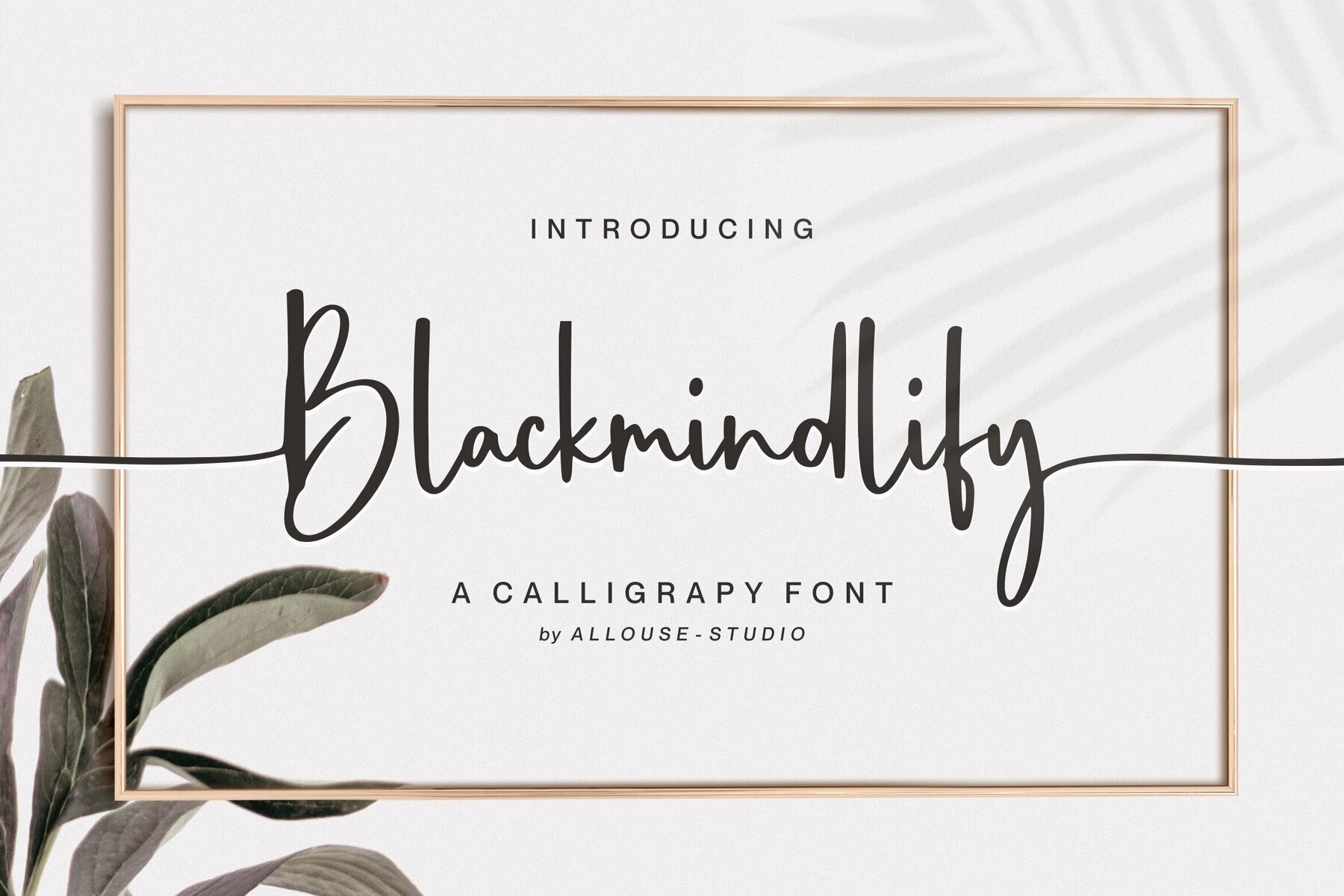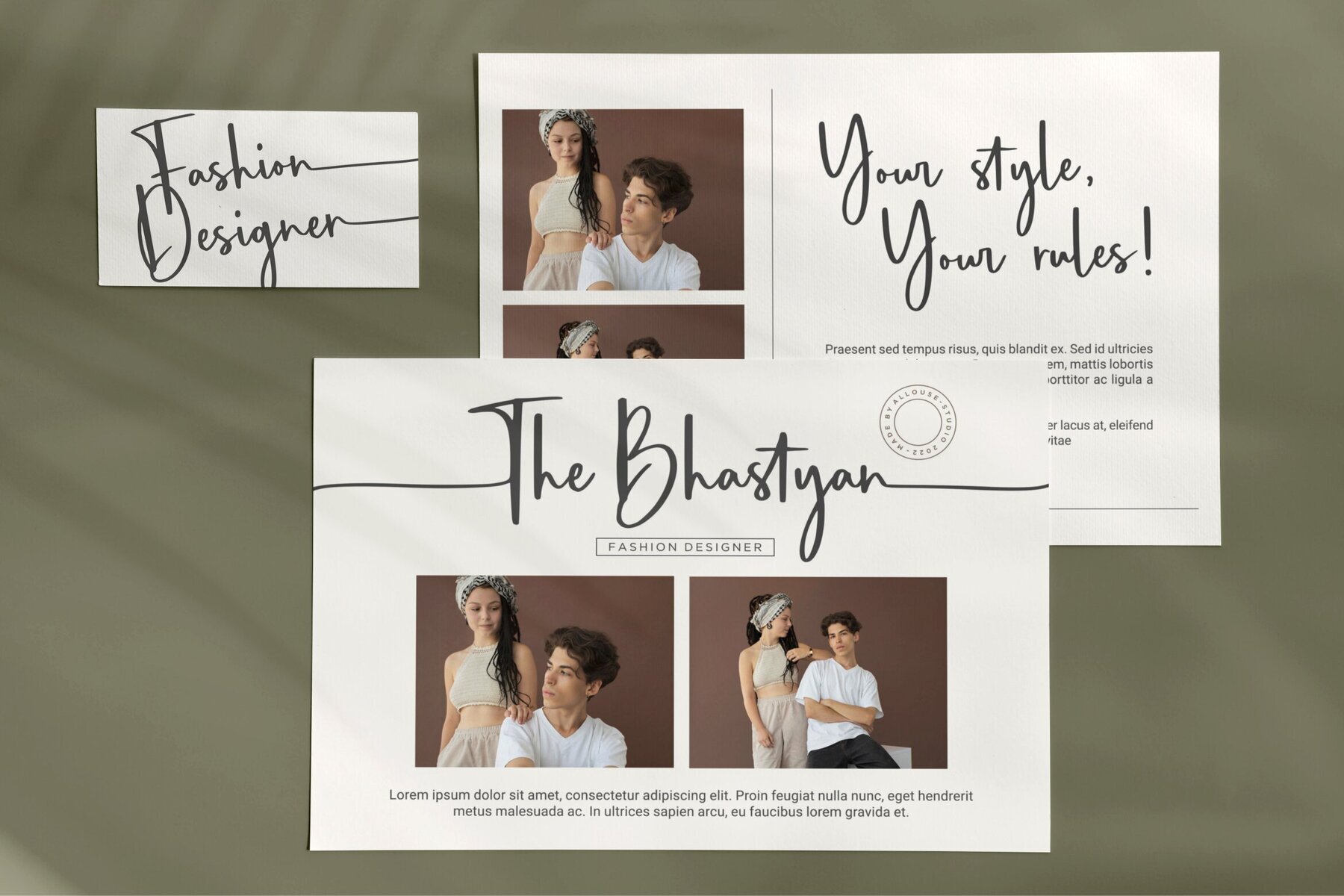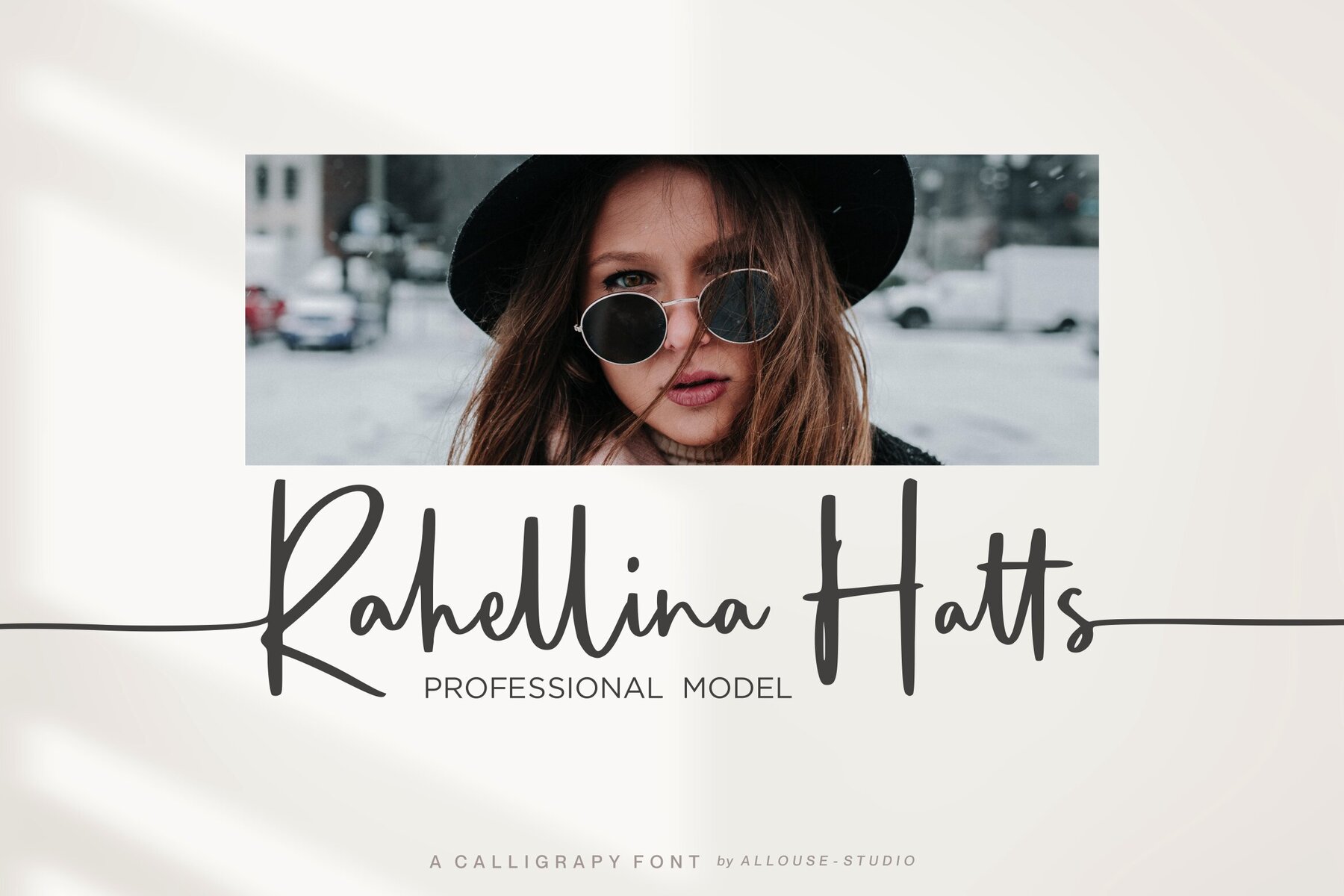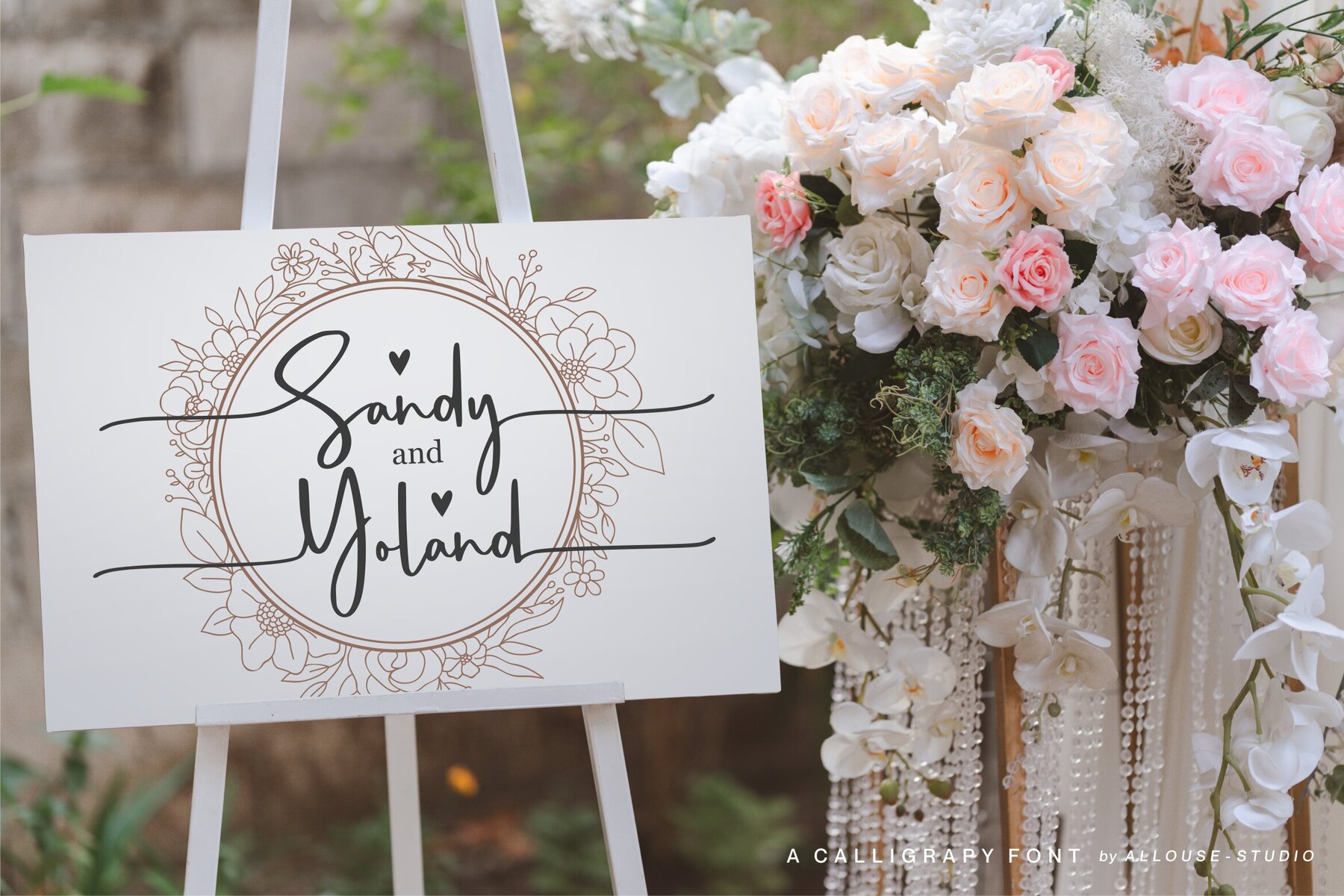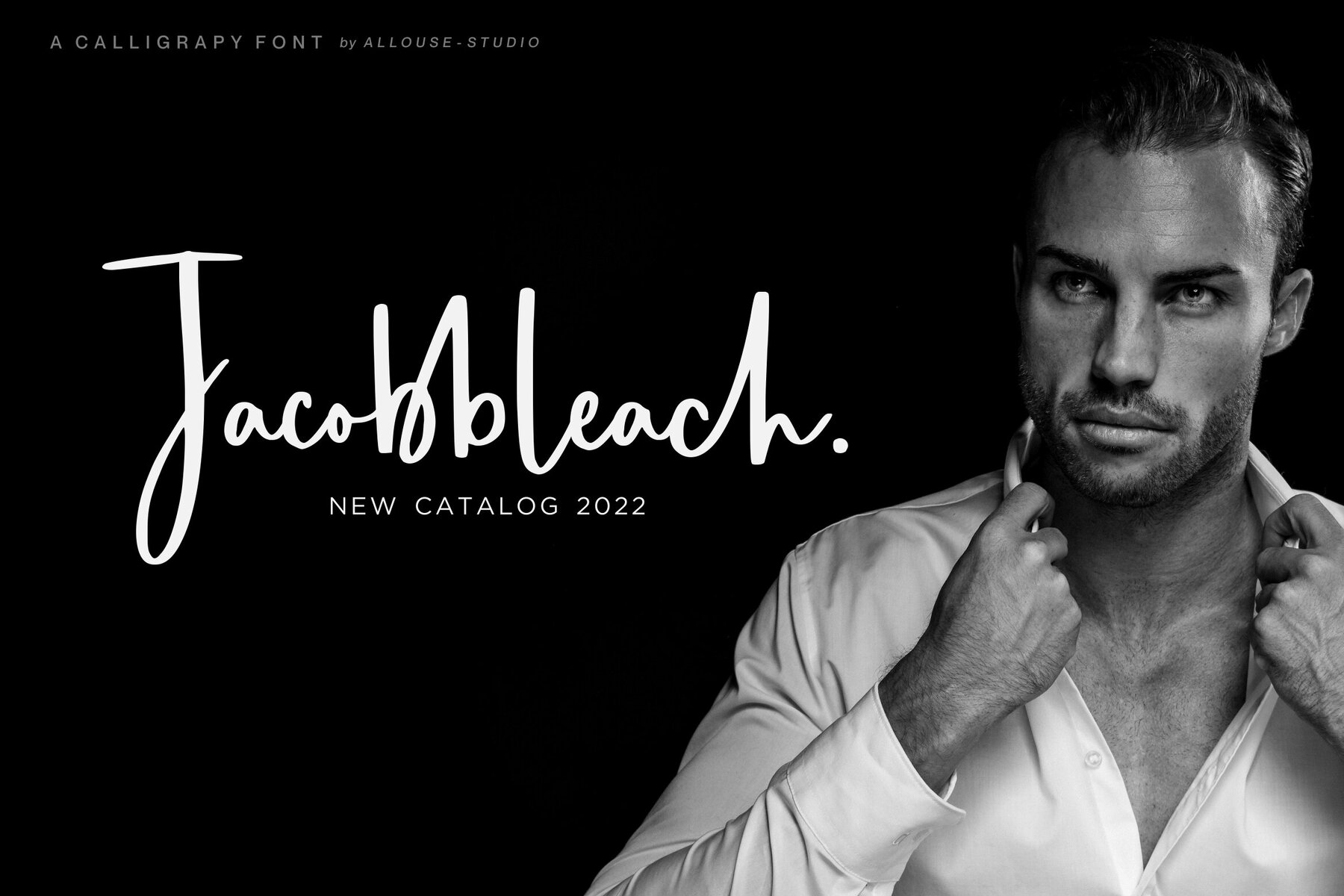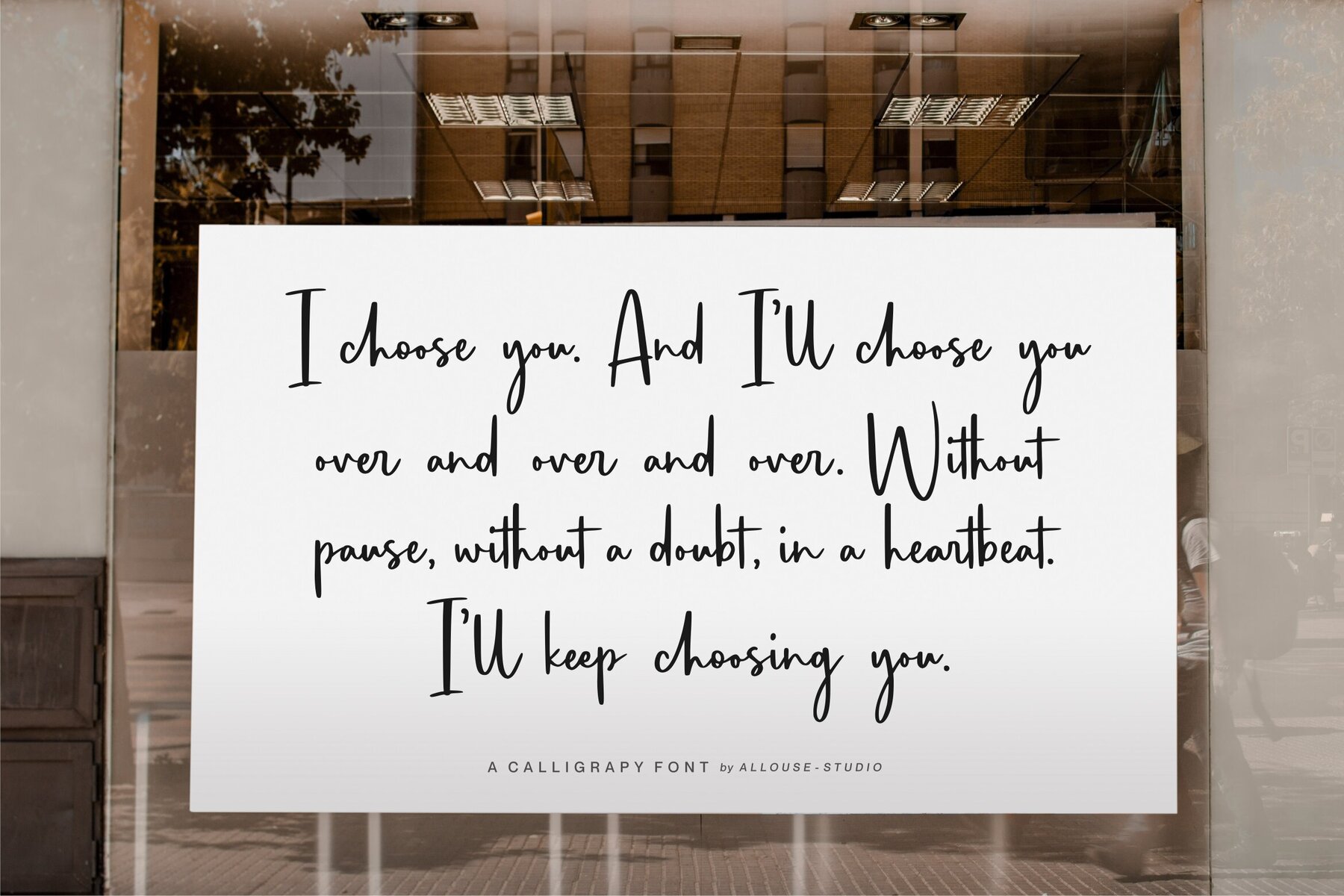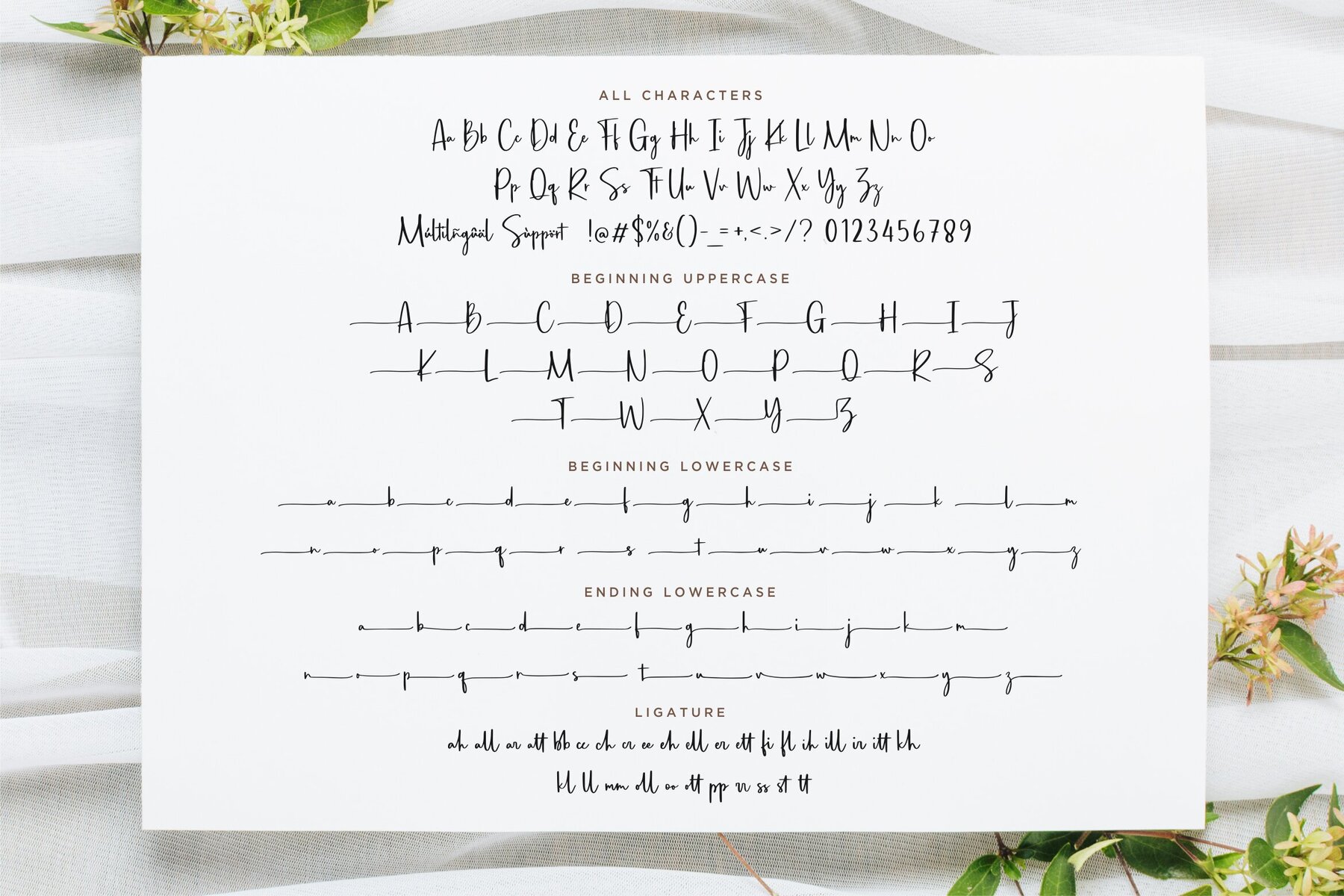
Blackmindlify Font
Blackmindlify Regular
Blackmindlify offers an elegant yet versatile typeface suited for an array of creative applications. Its distinctive style is ideal for adding a touch of sophistication to product packaging, branding projects, magazines, or social media posts. The font also adds elegance to wedding designs or serves as an eye-catching tool to express words against any backdrop.Blackmindlify: Sophisticated Typeface for Diverse Projects